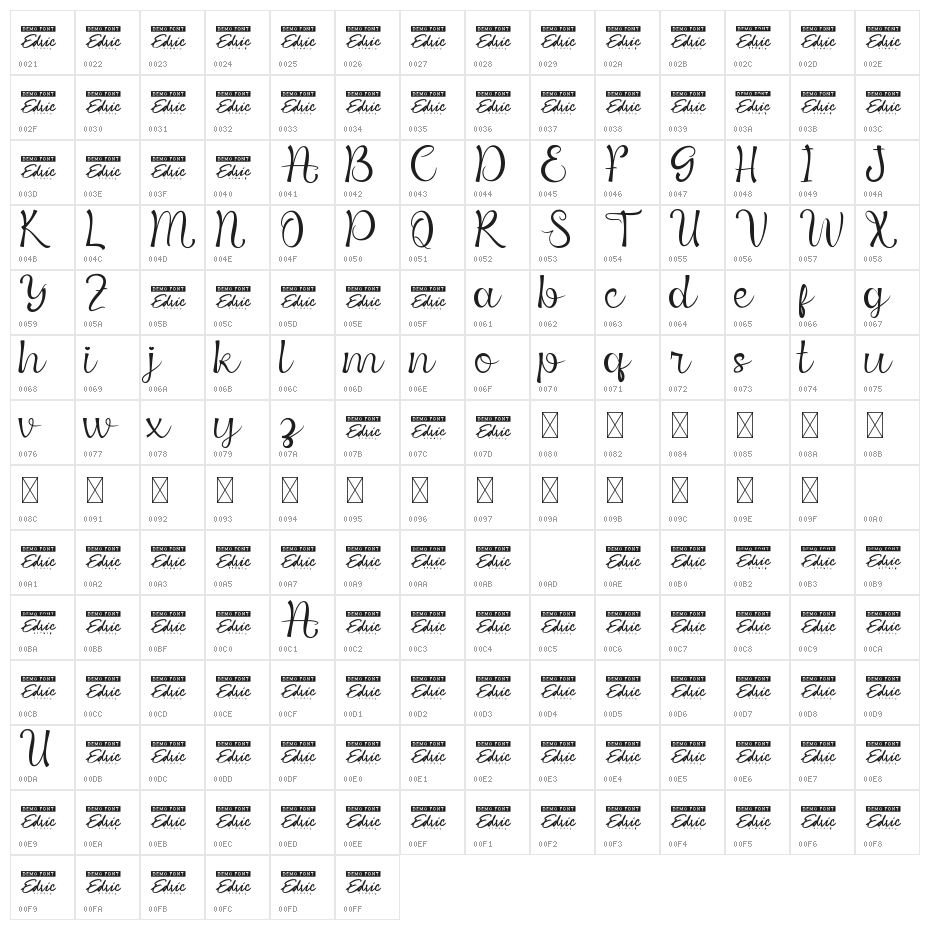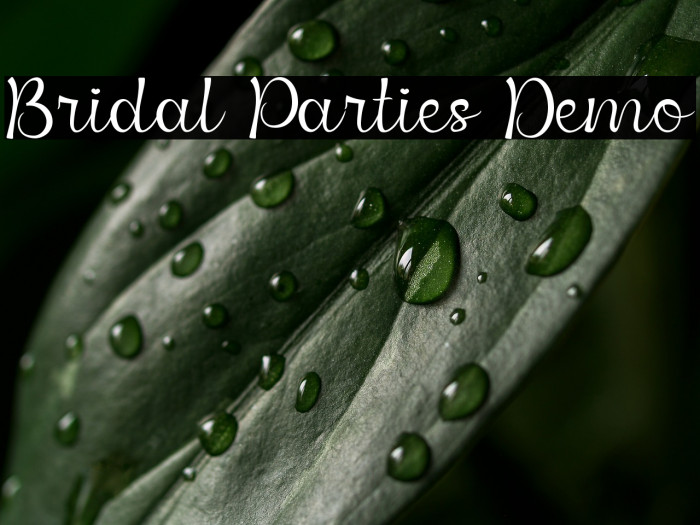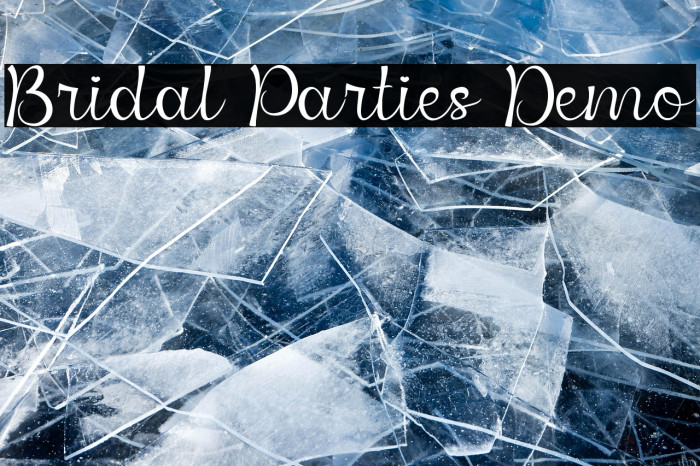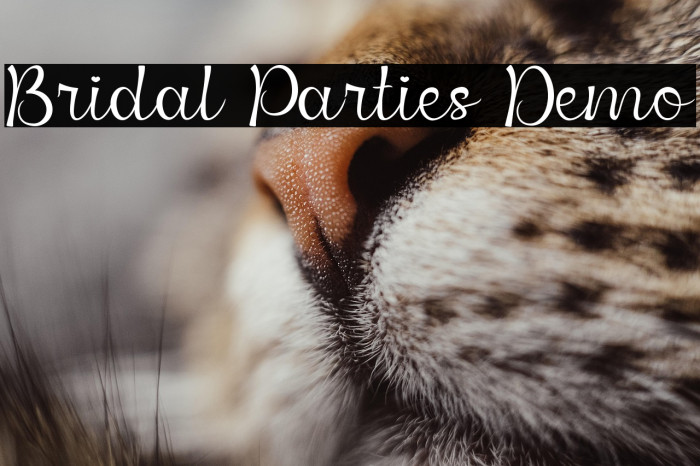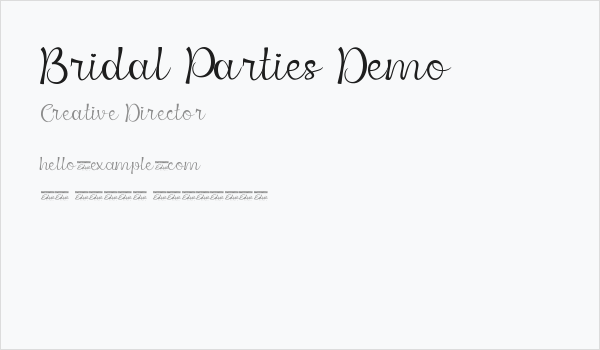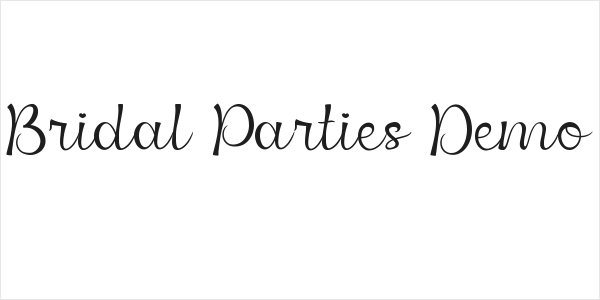
Bridal Parties Demo Font
Bridal Parties Demo Description
This font exudes a charming and elegant script style, characterized by its flowing, cursive letterforms. The uppercase letters are gracefully designed with a slight slant, featuring subtle flourishes that add a touch of sophistication. The lowercase letters maintain a consistent style, with smooth, connected strokes that create a harmonious flow. The font's overall appearance is delicate yet legible, making it suitable for formal and decorative purposes. Its unique style is perfect for adding a personal touch to invitations, greeting cards, and other special occasion materials.
| Use Case | Invitations, Decorative text, Personal branding |
| Proposed Projects | Ideal for wedding invitations, greeting cards, personal branding, and decorative projects. |